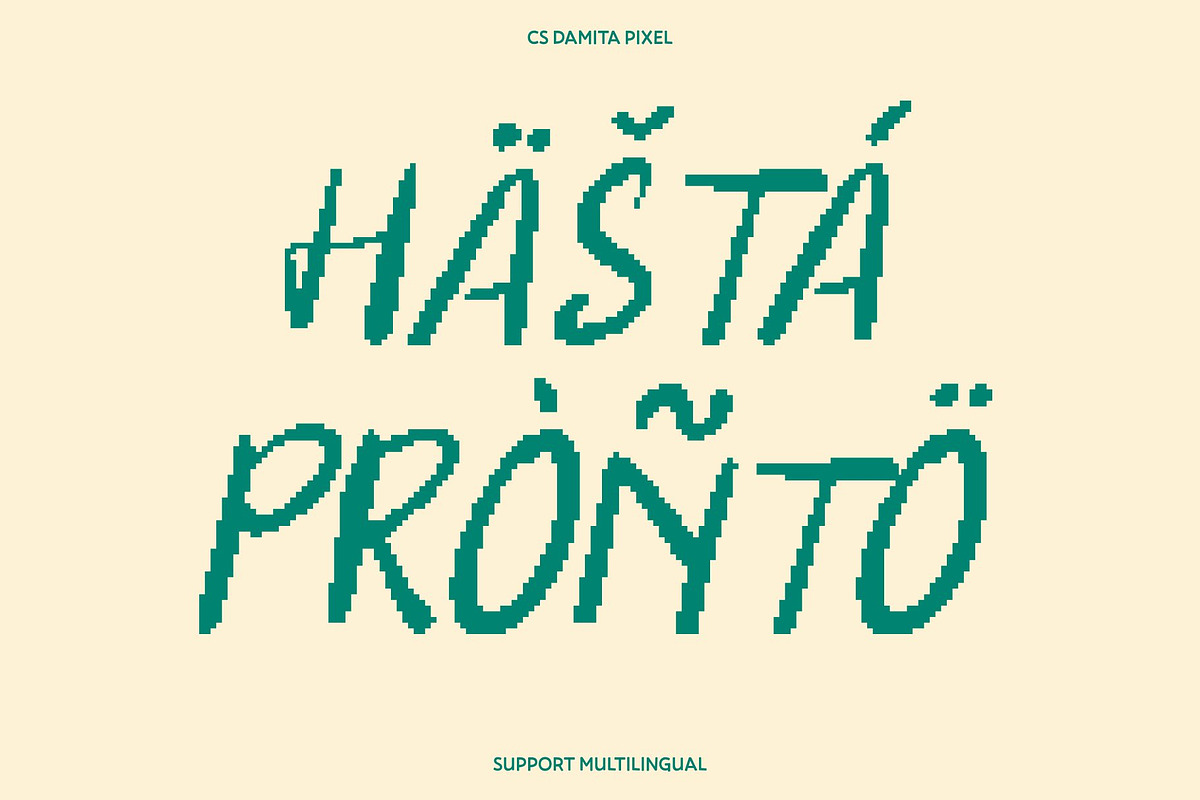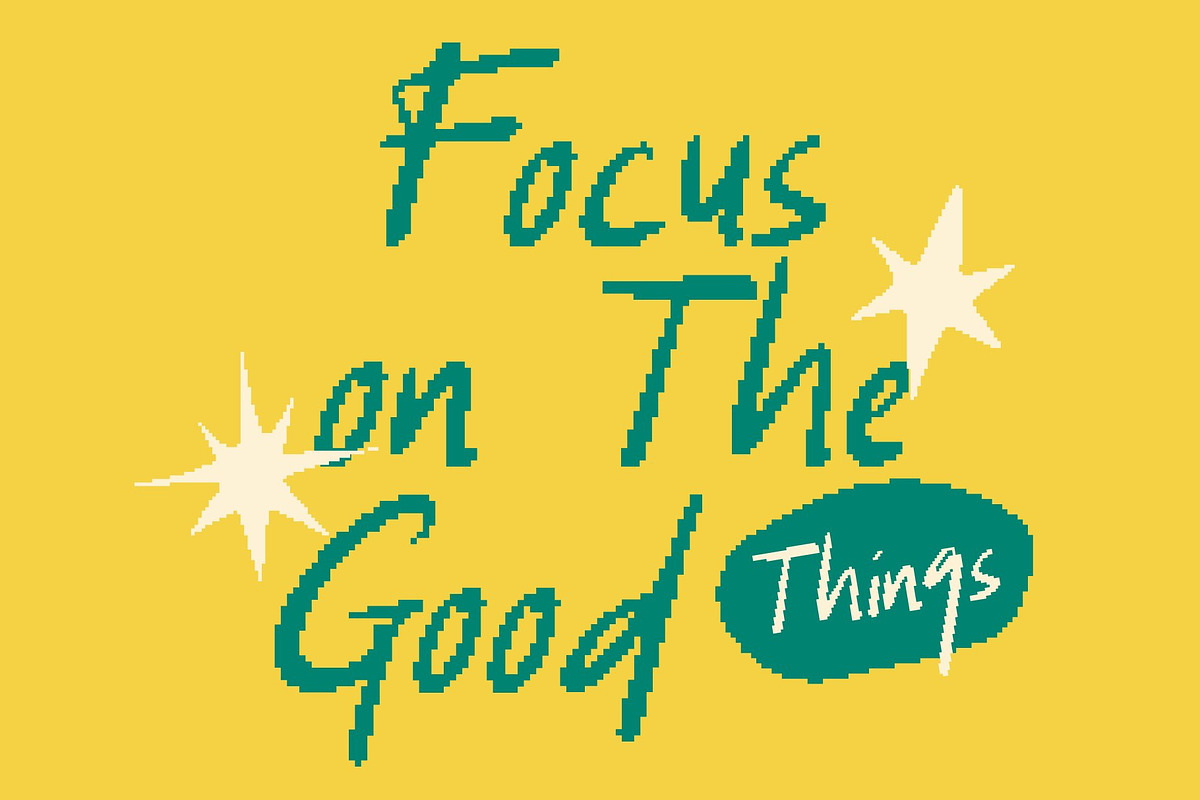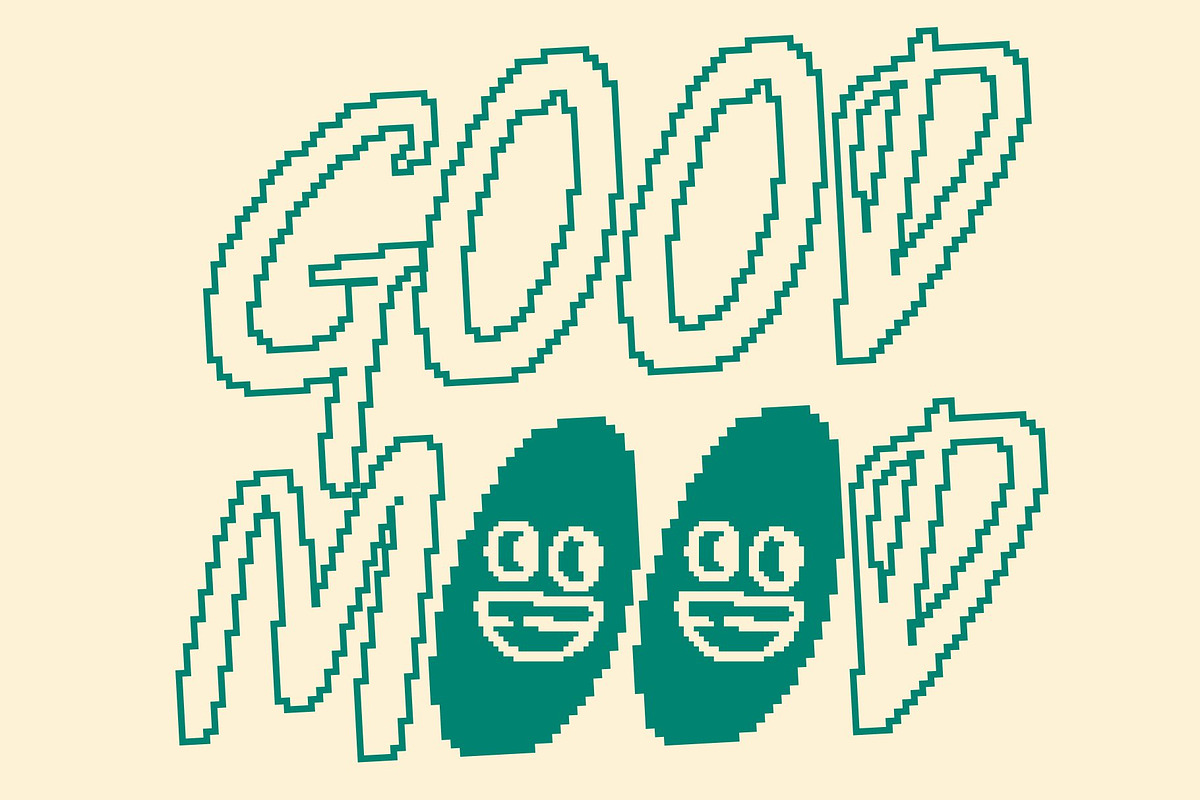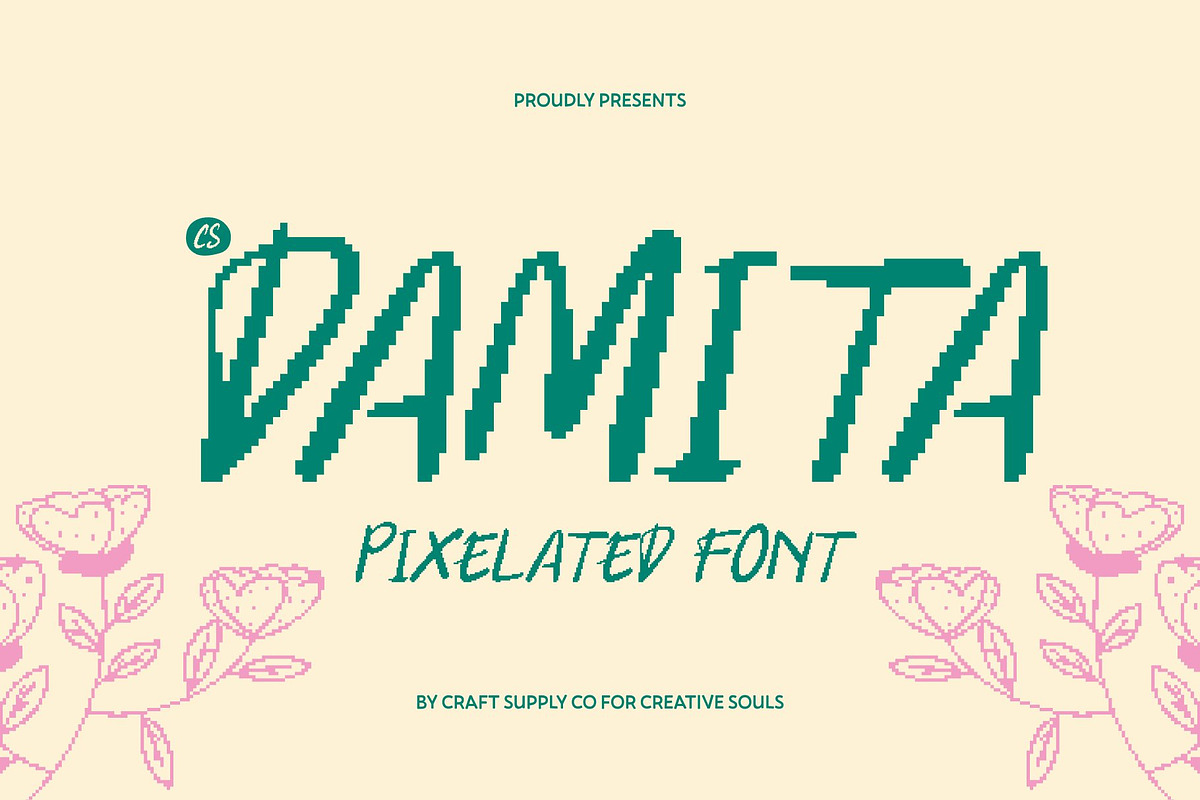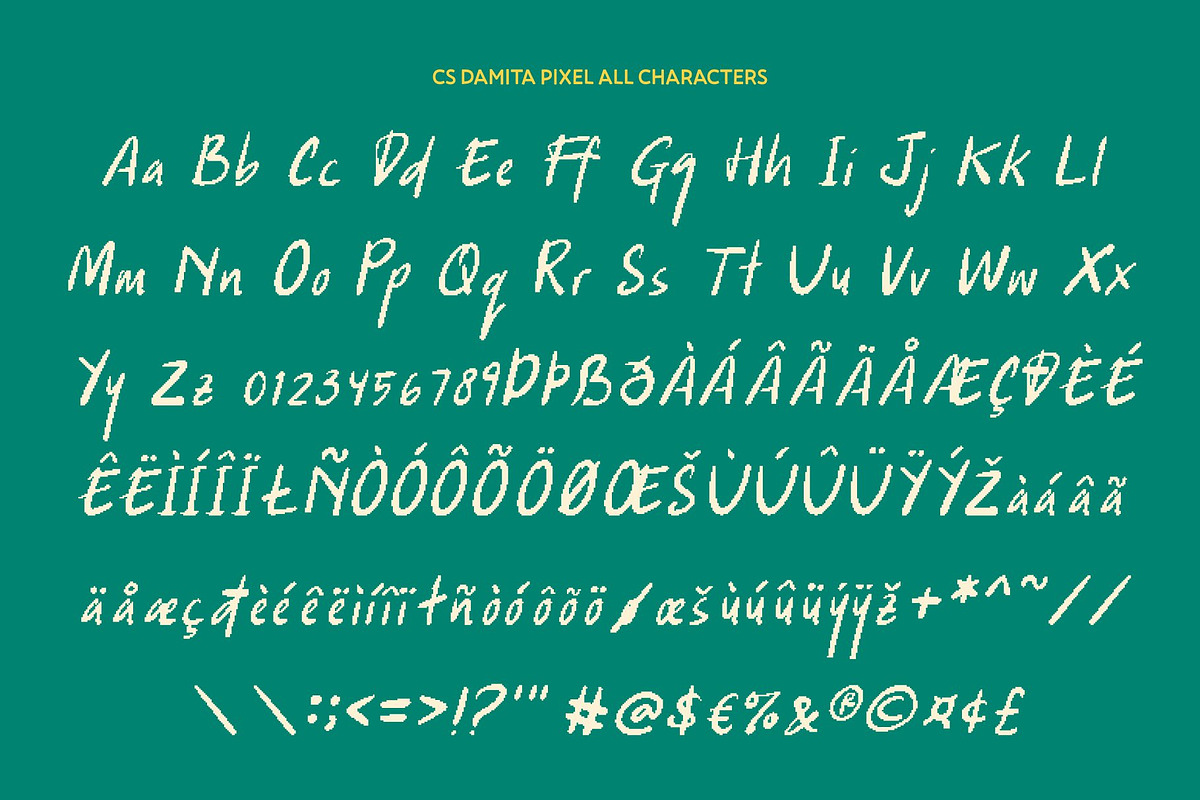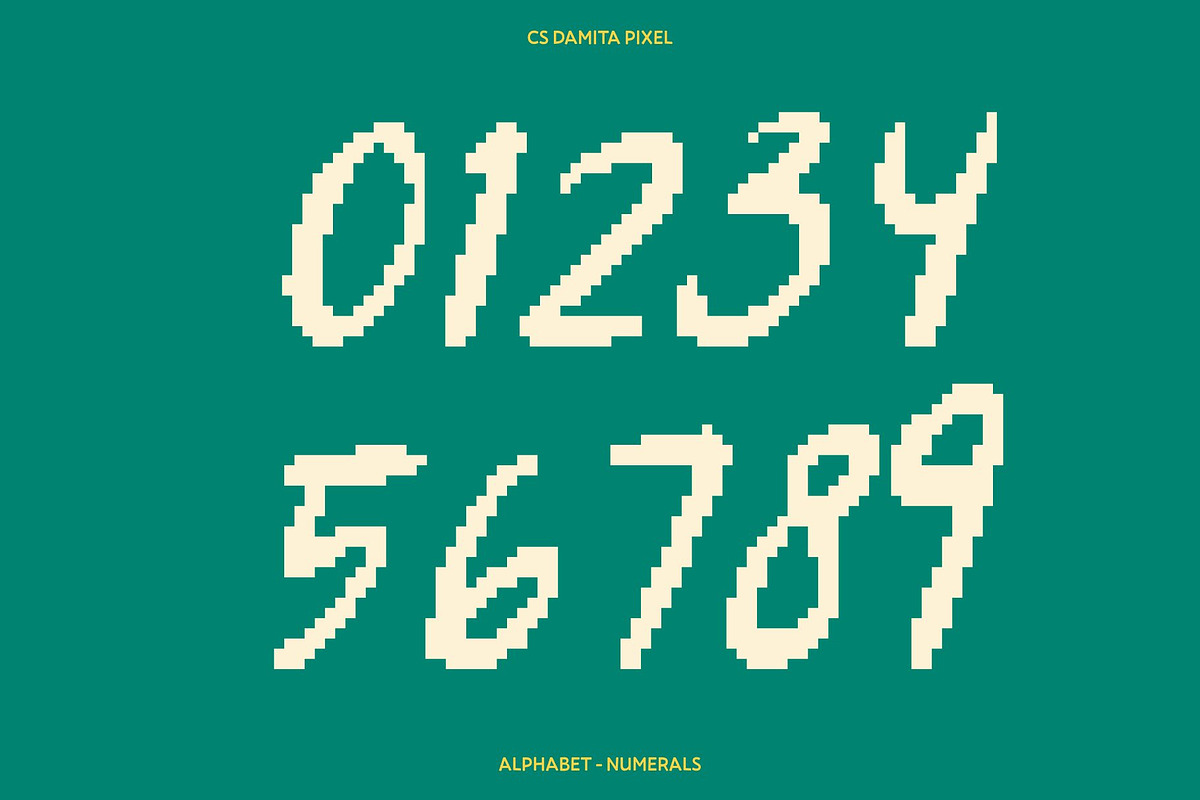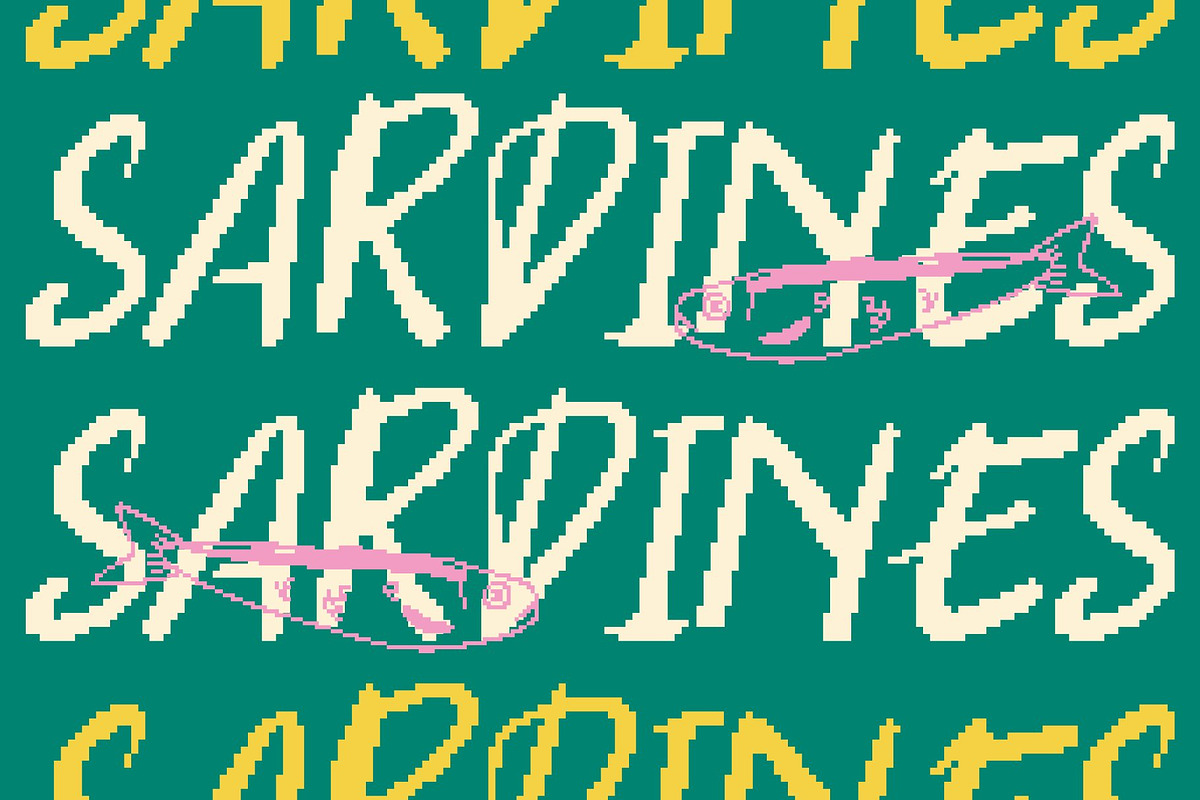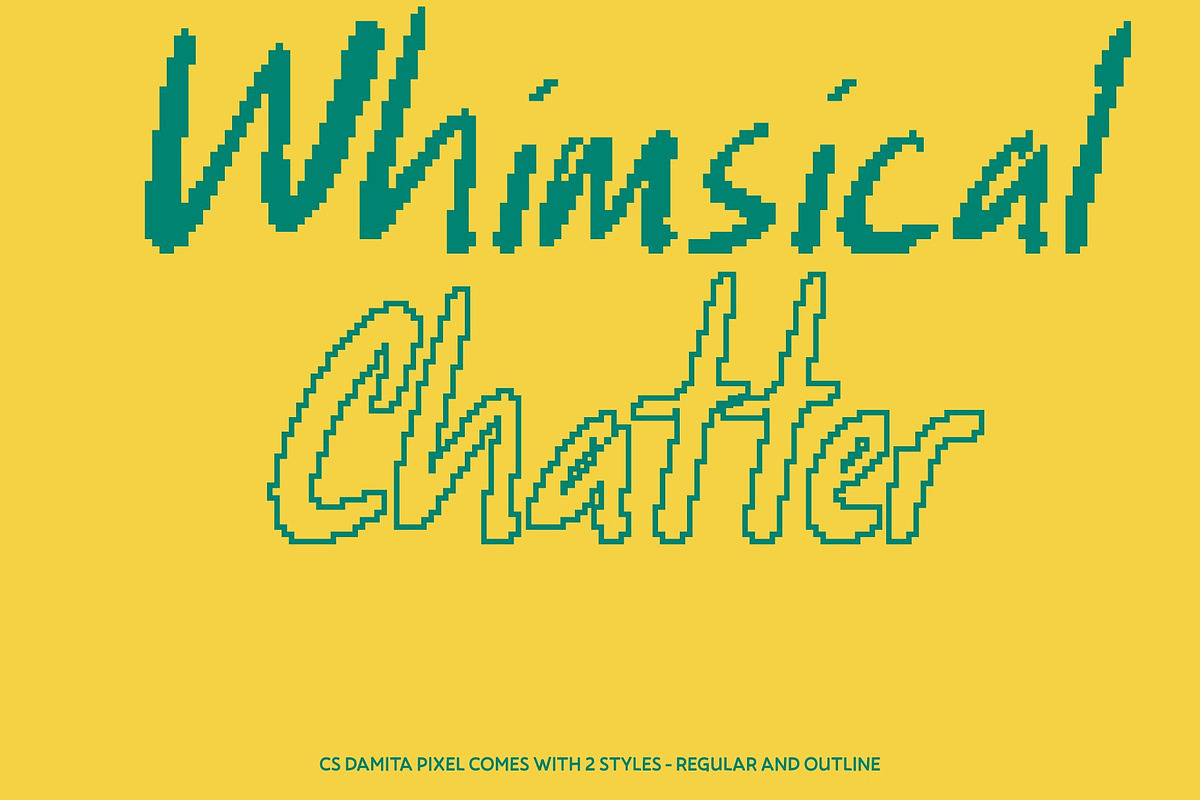
CS Damita Pixel
CS Damita Pixel – Soft Handwritten Display with Warm Digital Authenticity
Natural Pen Strokes with Expressive Pixel Warmth This is a handwritten display font designed to capture the soft, expressive beauty of real pen strokes, refined with subtle pixel precision. Its gentle curves and organic movement create a soothing handwritten feel that remains clear and screen-friendly. Each letter carries natural charm, making the font ideal for conveying authenticity, warmth, and personal connection in modern digital designs.
Soft Pixel Curves for a Friendly, Approachable Look The softness of this font gives it a heartfelt and approachable presence. Smooth strokes and delicate variations carefully shaped within a pixel structure mimic genuine handwriting while maintaining visual balance. This gentle construction enhances readability and keeps the tone relaxed, personal, and meaningful.
Expressive Flow with a Modern Digital Touch With its expressive handwritten rhythm, this font brings emotion and personality to every layout. The natural flow of each stroke is complemented by subtle digital texture, making short phrases, titles, and quotes feel intimate, warm, and alive. It’s a perfect choice for storytelling, emotional visuals, and creative expression.
Perfect for Personal Branding, Quotes, and Casual Digital Invitations This font is ideal for personal branding, inspirational quotes, casual invitations, signature-style logos, social media posts, greeting cards, and journaling aesthetics. Its blend of handwritten warmth and gentle pixel refinement makes every design feel sincere, modern, and thoughtfully crafted.
- CS Damita Pixel Regular
- CS Damita Pixel Outline